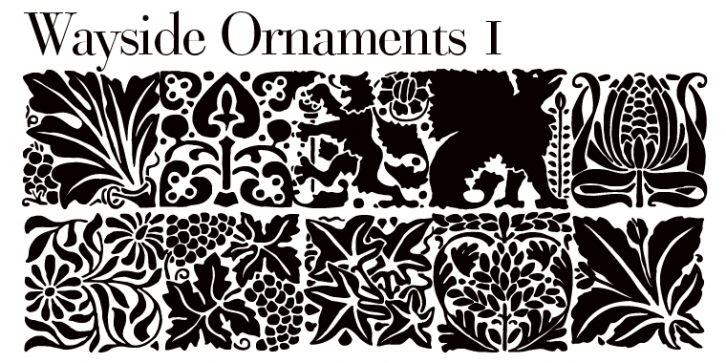
Wayside Ornaments is a dingbat font family. This typeface has two styles and was published by Wiescher-Design.
»Wayside-Ornaments« are another »trouvaille«. Great looking ornaments, lions, butterflies and other animals. Two for the price of one by Gert Wiescher